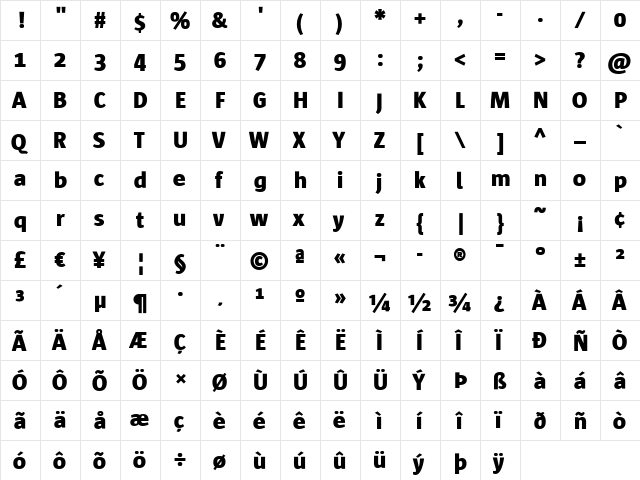
Sun Sans- Heavy Font Preview
Sun Sans- Heavy
| Foundry | Luc[as] de Groot Exclusive for Sun Microsystems, version |
Design Context for Sun Sans- Typeface
Sun Sans- takes a measured approach to typography — its balanced proportions and neutral character make it a reliable workhorse for both digital and print work.